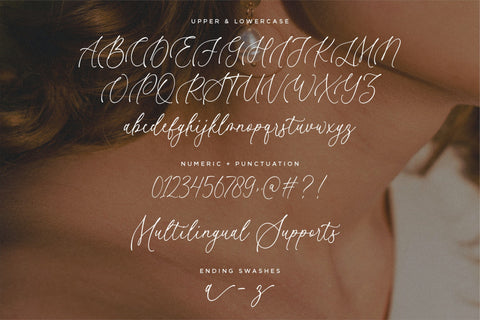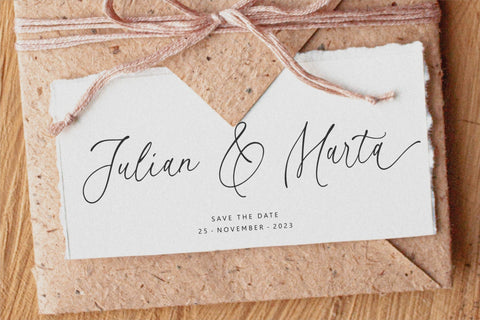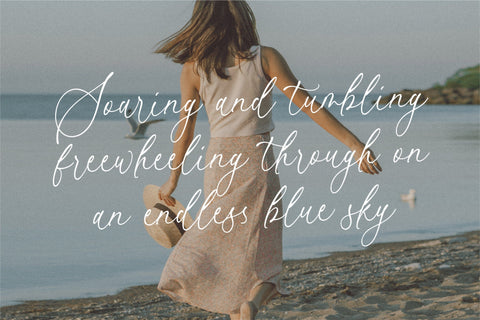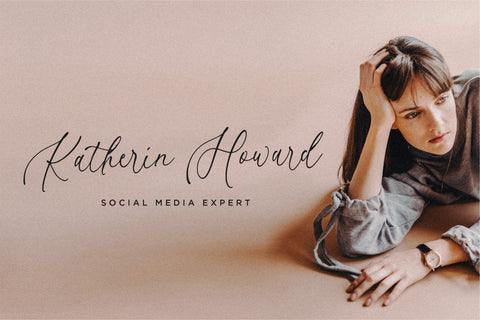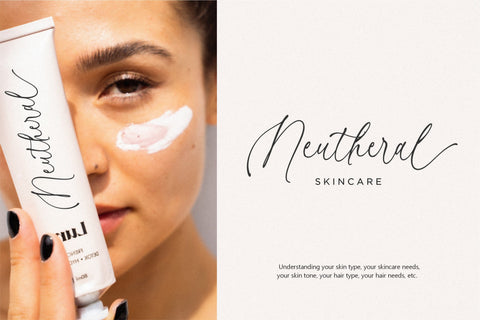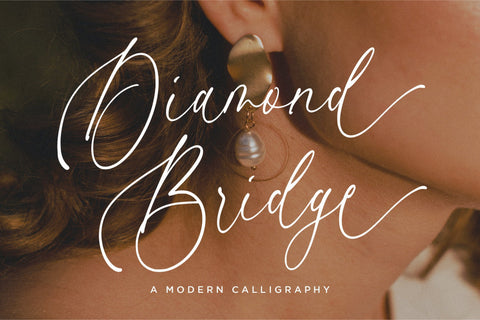
Diamond Bridge Font
Introducing by Balpirick Studio
Diamond Bridge is a modern calligraphy font with lowercase tails, a sophisticated and elegant typeface that combines the beauty of traditional calligraphy with a contemporary twist.
Each lowercase letter is adorned with a graceful and stylish tail, adding a touch of flourish and charm. The flowing and organic letterforms of this font give it a sense of movement and grace, making it perfect for projects that require a touch of sophistication and personalization.
Whether you're designing wedding invitations, luxury branding, or elegant signage, this modern calligraphy font with lowercase tails will add a touch of timeless beauty to your designs. Embrace the artistry of handcrafted lettering and elevate your typographic creations with this exquisite font.